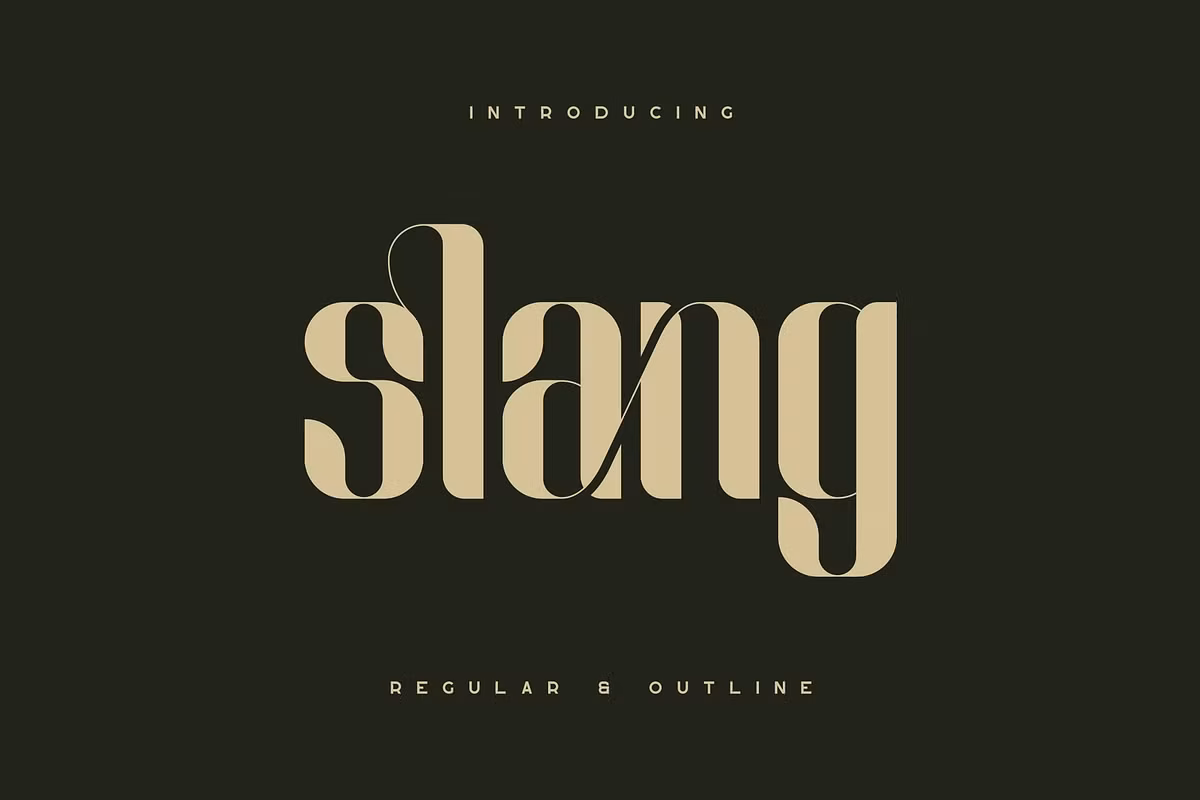
Add stylish rhythm and modern edge to your designs with Slang – Ligature Font Free Download. This contemporary typeface features sleek letterforms and a variety of creative ligatures, making it perfect for branding, editorial design, logo creation, fashion campaigns, and social media graphics.
Slang is all about personality — with clean lines, bold flair, and eye-catching ligature combinations that elevate your typography. It includes uppercase and lowercase characters, numerals, punctuation, and an extensive set of ligatures—ideal for testing sophisticated, design-forward layouts.